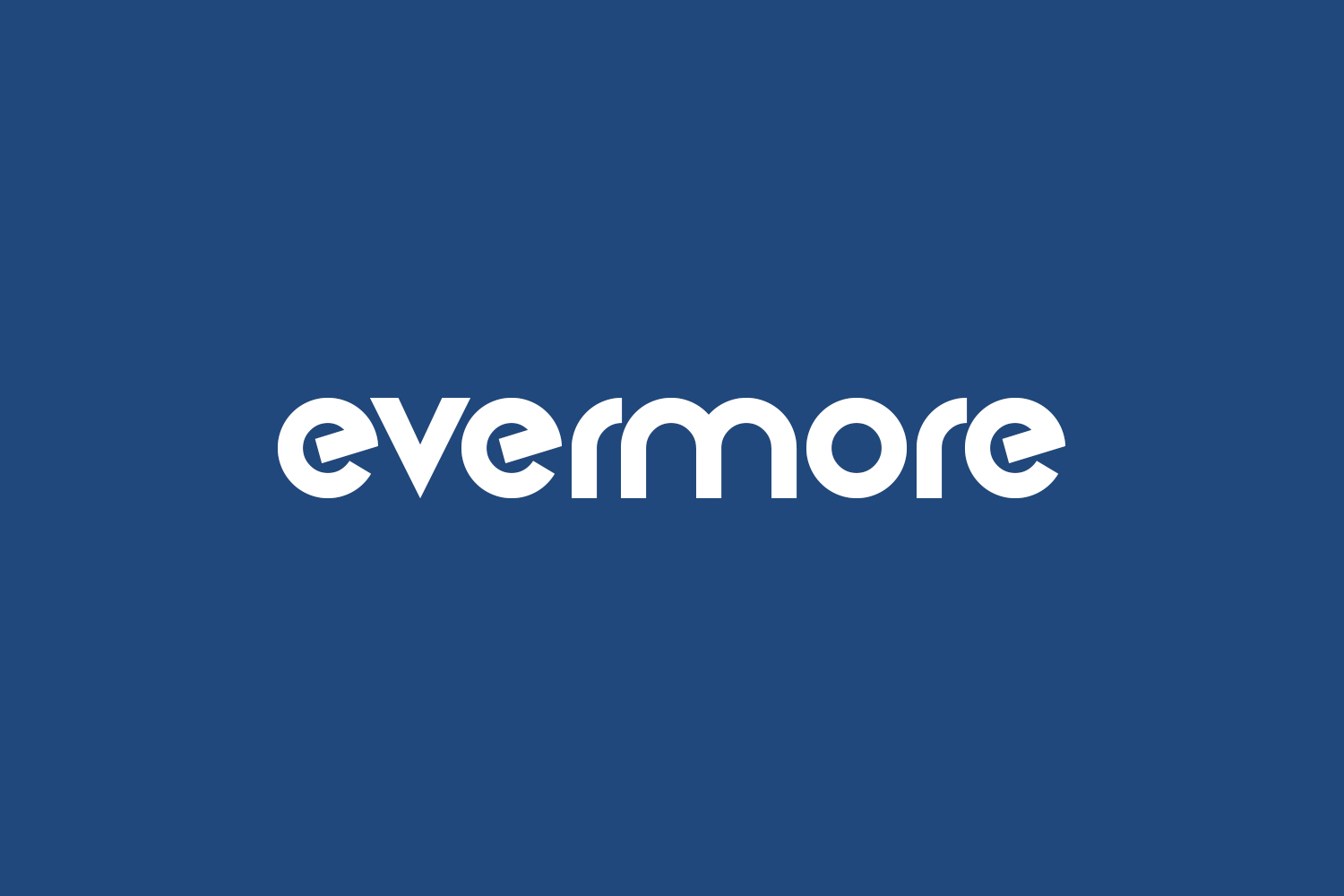
Evermore Free Font Family is a super clean, rounded font in a strong geometric, modern style. Perfect for high tech themes, space exploration, and general every day use. Evermore Free Font Family is free for personal use only. Please purchase the full version for commercial use.
Designed by Darrell Flood